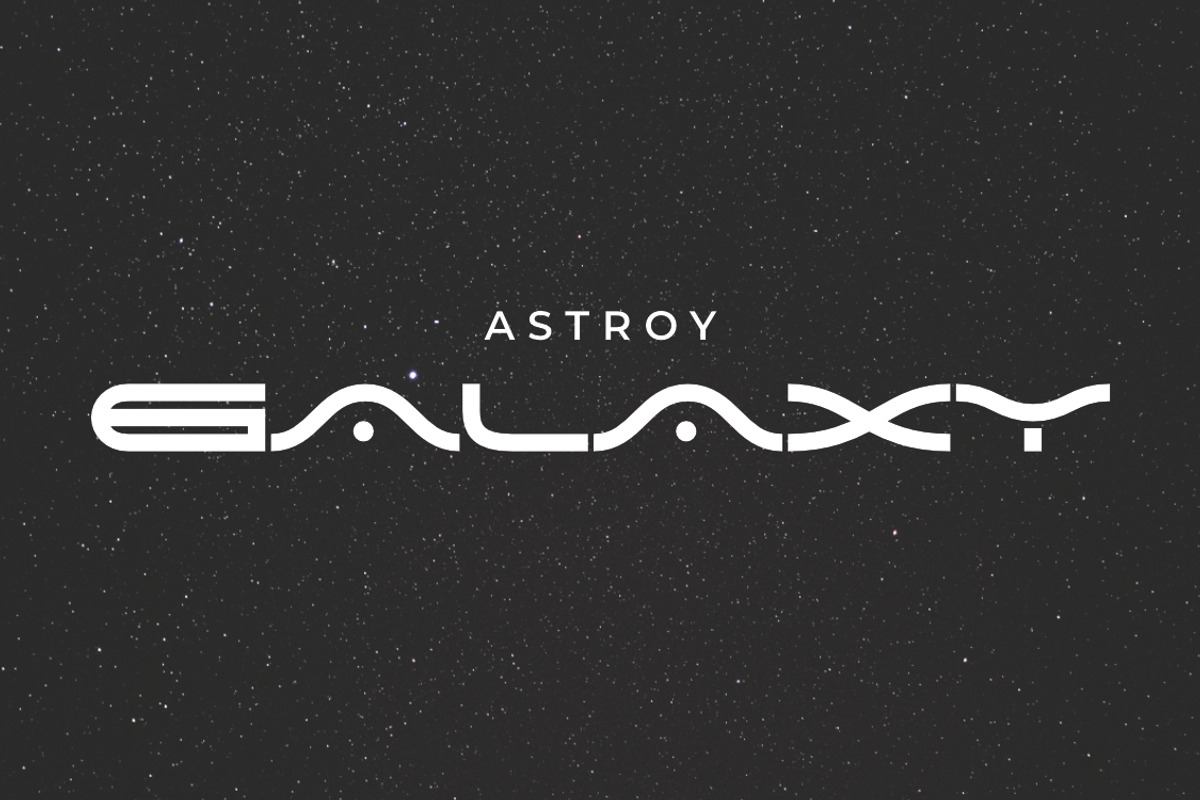
Astroy Galaxy Sans Serif Fonts Bold Free Download is a futuristic and striking typeface designed to make a bold statement. With its clean lines, wide stance, and space-age inspiration, this font is ideal for sci-fi designs, tech branding, digital products, video game titles, and bold headline graphics that need a modern cosmic edge.
Astroy Galaxy Sans Serif Fonts Bold Free Download brings a high-impact look while maintaining excellent legibility. Its geometric structure and sleek form make it versatile for both print and digital use—especially in projects that embrace innovation, speed, or modernity.